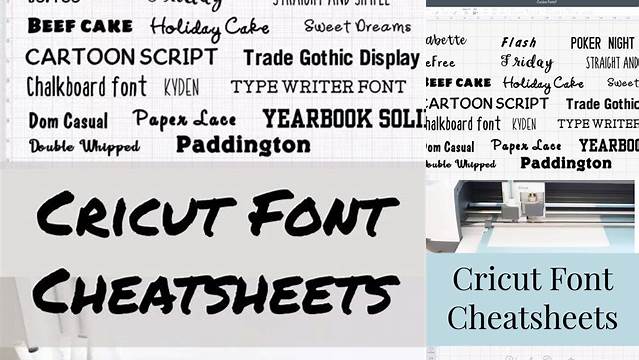
Cricut Font Cheat Sheet: Your Ultimate Guide
Hey crafters! Ever feel lost in the world of Cricut fonts? Don't worry, you're not alone! With so many options, picking the perfect font for your project can feel overwhelming. That's why we've created the ultimate Cricut font cheat sheet to help you navigate the fontastic world of Cricut. Let's dive in and make your next project a font-tastic success!
1. Understanding Cricut Design Space Fonts
Let's kick things off by understanding the basics. Cricut Design Space offers a wide range of fonts, from system fonts (the ones already on your computer) to Cricut fonts (those you can access through a Cricut Access subscription or purchase individually). Knowing the difference is key. System fonts are free to use, which is awesome, but Cricut fonts often have unique features and styles perfect for specific projects. When you're browsing fonts, pay attention to the filters in Design Space. You can filter by font type (single-layer, writing, etc.), style (bold, italic, etc.), and even by language. This makes it way easier to narrow down your choices. Guys, it's like having a personal font assistant! Plus, remember that you can always upload your own fonts, which opens up a whole new world of possibilities. So, go explore, experiment, and find fonts that speak to your creative soul!
2. Best Cricut Fonts for Beginners
If you're just starting out with your Cricut, navigating the font world can seem like deciphering hieroglyphics. But fear not, fellow crafters! There are some fantastic fonts that are super user-friendly and perfect for beginners. Think simple sans-serif fonts like Arial or Helvetica – they're clean, easy to cut, and great for all sorts of projects. For a touch of elegance, try a basic script font, but make sure it's not too intricate, as those can be tricky to weed. The key is to choose fonts with clear, smooth lines and avoid anything too thin or overly detailed. Trust me, your weeding tool will thank you! Also, don't be afraid to experiment with different font weights (bold, regular, light) to see what works best for your project. Remember, the goal is to create something beautiful without wanting to throw your Cricut out the window in frustration. So, keep it simple, have fun, and you'll be a font pro in no time!
3. Top Cricut Fonts for Vinyl Projects
Ah, vinyl – the backbone of many a Cricut project. But not all fonts are created equal when it comes to cutting and weeding vinyl. You want fonts that are bold and easy to weed, especially for smaller text. Think strong sans-serif fonts like Impact or Bebas Neue, which are super popular for a reason. They're clean, legible, and cut like a dream. If you're going for a more decorative look, consider thicker script fonts or fonts with minimal swirls and flourishes. The key is to avoid super thin fonts or those with tiny, intricate details, as they can be a nightmare to weed. Trust me, I've been there! Also, always do a test cut before committing to your entire project. This will help you see how the font cuts and weeds, and you can make adjustments as needed. So, choose wisely, test it out, and get ready to create some vinyl magic!
4. Cricut Font Pairing Tips
Okay, guys, let's talk font pairing – the secret sauce to creating visually stunning projects. Mixing and matching fonts can add depth and personality to your designs, but it's also easy to go overboard. The golden rule? Keep it simple! Start with two, maybe three fonts at most. A great combo is a bold sans-serif for headlines paired with a delicate script for subtext. Or, you can combine a serif font (like Times New Roman) with a sans-serif for a classic look. The key is to create contrast while maintaining harmony. Think of it like pairing wine and cheese – you want flavors that complement each other. Also, pay attention to font weights and sizes. A large, bold headline paired with smaller, lighter body text creates a clear visual hierarchy. And don't be afraid to experiment! Try different combinations and see what you like. There are tons of resources online with font pairing suggestions, so do some research and find inspiration. Happy pairing!
5. Free Cricut Font Resources
Who doesn't love free stuff? When it comes to Cricut fonts, there are tons of amazing free resources out there. Your computer's system fonts are a great starting point, offering a variety of styles from basic to elegant. But the real treasure trove lies online. Websites like DaFont, FontSpace, and Google Fonts offer thousands of free fonts, ranging from classic to quirky. Just be sure to check the licensing before you use a font, especially for commercial projects. Some fonts are free for personal use only, while others can be used for anything. Also, keep an eye out for free font bundles and deals. Many designers and websites offer free fonts as part of promotions or giveaways. These can be a fantastic way to expand your font library without breaking the bank. So, get searching, download some goodies, and let your creativity run wild!
6. Best Script Fonts for Cricut
Script fonts – they're the elegant, swirly beauties that can add a touch of sophistication to any Cricut project. But with so many script fonts out there, how do you choose the right one? For a classic, timeless look, try a traditional script like Brush Script or Snell Roundhand. These fonts have graceful curves and a formal feel, perfect for wedding invitations or elegant home decor. If you're going for something more modern and playful, check out calligraphy-inspired fonts like Lemon Jelly or Sweet Pea. These fonts have a whimsical, hand-lettered vibe that's great for DIY gifts or kids' projects. The key to working with script fonts is to ensure they're easy to cut and weed. Avoid super thin scripts or those with overly intricate details, as these can be tricky to work with. And always weld your script fonts in Design Space to ensure the letters connect smoothly. So, go ahead, explore the world of script fonts and add a touch of elegance to your next Cricut creation!
7. Sans-Serif Fonts for Cricut: A Comprehensive Guide
Let's dive into the world of sans-serif fonts – the workhorses of the font family. These fonts are clean, modern, and super versatile, making them a must-have for any Cricut crafter. Sans-serif fonts are characterized by their lack of serifs (those little decorative strokes at the ends of letters), which gives them a simple, minimalist look. For a classic, go-to sans-serif, you can't go wrong with Arial or Helvetica. These fonts are super legible and work well in a variety of projects. If you're looking for something a bit more modern, try Open Sans or Montserrat. These fonts have a slightly rounded shape and a friendly feel. Sans-serif fonts are perfect for headlines, body text, and anything in between. They're also great for vinyl projects, as their clean lines make them easy to cut and weed. When choosing a sans-serif font, consider the overall tone of your project. Do you want something professional and polished, or something more casual and playful? There's a sans-serif font out there for every style and occasion. So, explore the options and find your perfect match!
8. Serifs Fonts: A Timeless Choice for Cricut Projects
Ah, serif fonts – the classic, sophisticated choice for adding a touch of elegance to your Cricut projects. Unlike their sans-serif cousins, serif fonts have those little decorative strokes (serifs) at the ends of the letters, giving them a more traditional, formal feel. Think of fonts like Times New Roman or Georgia – these are quintessential serif fonts that have been used for centuries. Serif fonts are perfect for projects where you want to convey a sense of authority, tradition, or elegance. They're great for wedding invitations, formal announcements, or sophisticated home decor. However, it's important to choose your serif fonts carefully, especially for cutting projects. Some serif fonts have very thin serifs, which can be tricky to cut and weed. Look for serif fonts with bolder serifs or a slightly thicker overall stroke weight. And always do a test cut to make sure the font cuts cleanly. So, if you're looking to add a touch of timeless elegance to your next Cricut project, consider a beautiful serif font!
9. Monogram Fonts for Cricut: Personalize Your Creations
Monogram fonts are a fantastic way to add a personal touch to your Cricut creations. Whether you're making gifts, home decor, or apparel, monograms can elevate your project from ordinary to extraordinary. Monogram fonts come in a variety of styles, from classic and elegant to modern and playful. Traditional monograms typically feature three initials, with the last name initial in the center and slightly larger than the other two. But there are tons of variations and styles to choose from. When working with monogram fonts, it's important to choose a font that's easy to cut and weed. Avoid fonts with super thin lines or intricate details, as these can be challenging to work with, especially in vinyl. Also, be sure to weld your monogram letters together in Design Space to create a smooth, seamless cut. Monogram fonts are perfect for personalizing all sorts of items, from mugs and tote bags to towels and apparel. So, get creative and add a personal touch to your next Cricut project with a beautiful monogram!
11. Writing Fonts for Cricut: Perfect for Calligraphy and Lettering
If you're into calligraphy or hand-lettering, writing fonts are your new best friend. These fonts are designed to mimic the look of handwritten text, making them perfect for creating personalized cards, invitations, or home decor with a personal touch. Writing fonts come in a variety of styles, from elegant and formal to casual and playful. Some writing fonts are designed to be used with Cricut pens, which allows you to actually